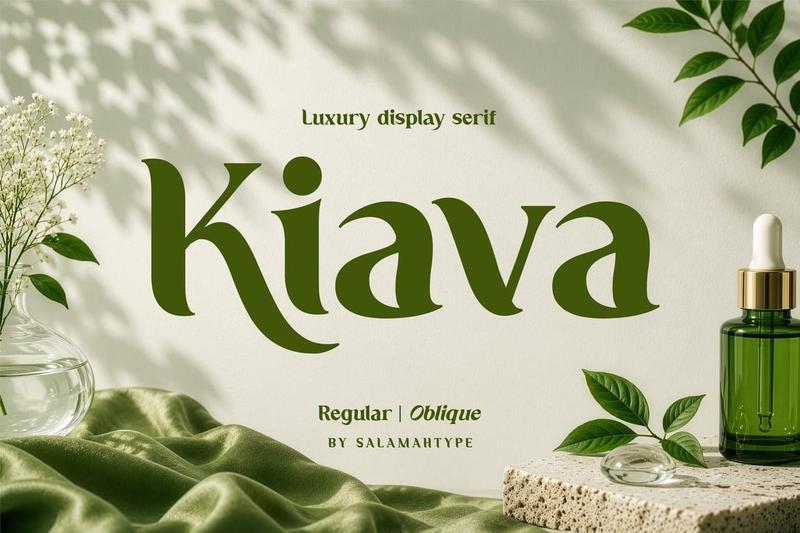
Kiava is a luxury display serif font with elegant curves and stylish details, designed to give your projects a modern and sophisticated look. Perfect for logos, beauty branding, perfume packaging, fashion editorials, wedding invitations, social media, and more.
With Regular and Oblique styles, beautiful ligatures, and multilingual support, Kiava brings a soft yet classy aesthetic that stands out effortlessly. Ideal for designers who want to create elegant and memorable branding.
Features:
– Uppercase & Lowercase
– Regular & Oblique Style
– Elegant Ligatures
– Stylish Alternates
– Multilingual Support
– Punctuation & Numbers
– Perfect for Luxury Branding